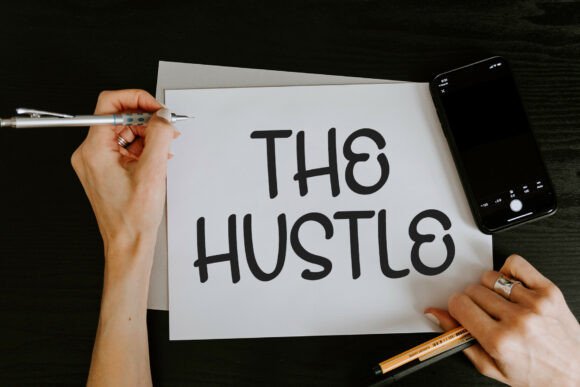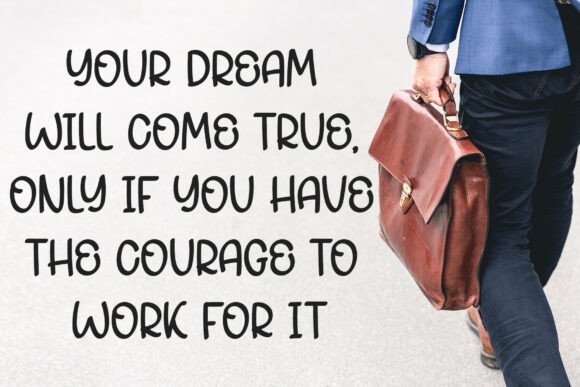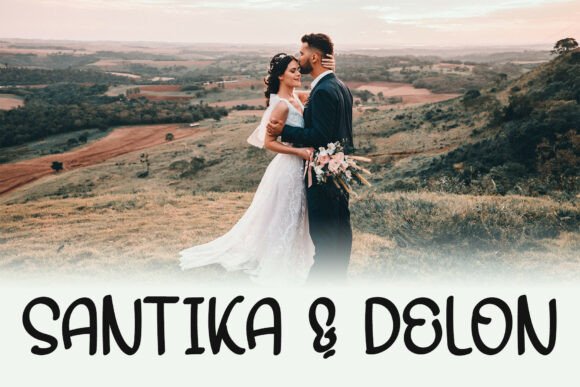
Bookmark Handwriting Font
Bookmark Handwriting is a bold and captivating display font that commands attention with its strong, distinctive letterforms. Designed to stand out, this powerful font blends creativity and impact, making it perfect for projects that need an eye-catching and memorable typographic style. Whether you’re working on branding, posters, or digital designs, Magic Writing adds a touch of bold magic to your visuals.